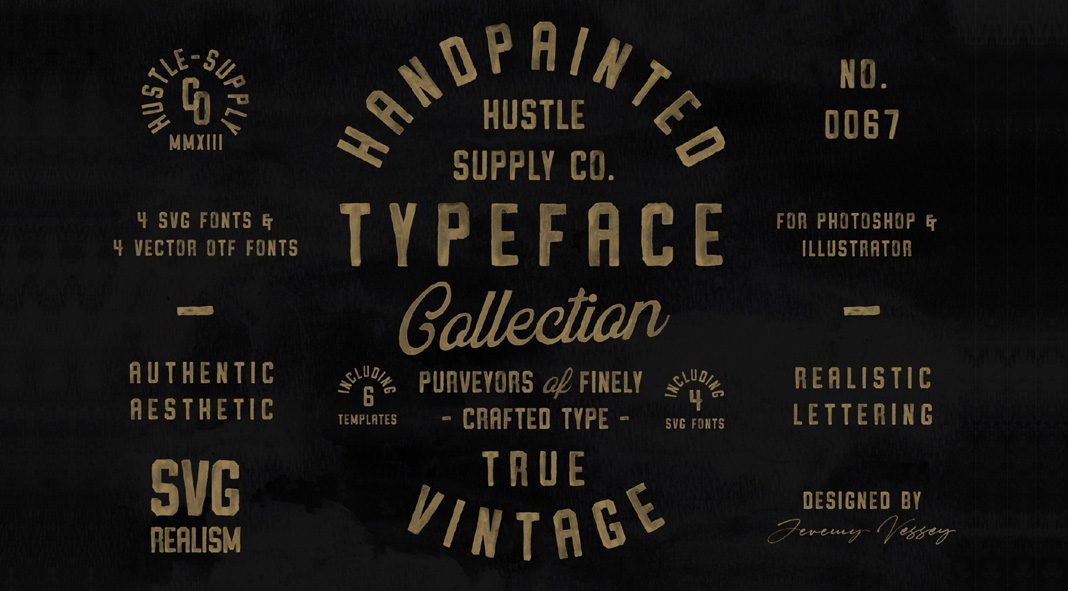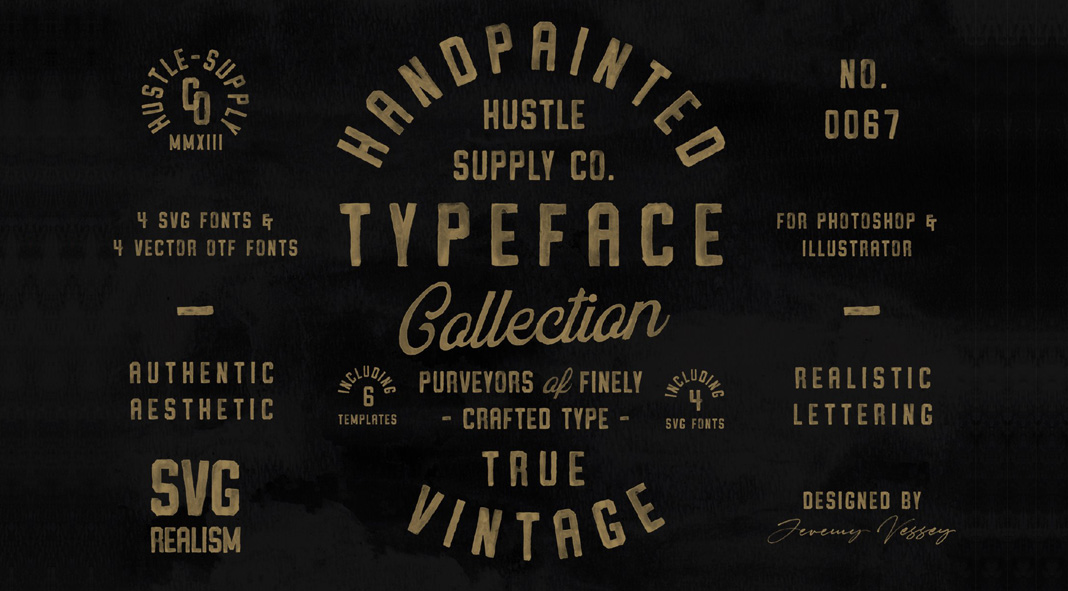
An amazing bundle of Vintage SVG fonts and logo templates created by Hustle Supply Co.
Using this amazing collection of fonts and logo templates, you can add a handcrafted look to your design projects! There is no need for complicated Photoshop actions as well as additional brushes or textures. The collection contains 4 different SVG typefaces plus 4 matching versions as basic vectorized fonts resulting in a total of 8 fonts. The collection is a great choice for packaging designs, invitations, business cards, prints, clothing, etc. Each font has been painted by hand, then scanned and converted into the OpenType SVG format. Just write whatever you want and get an authentic handmade aesthetic in no time. The collection also includes 6 editable logo templates as SVG and vector versions.